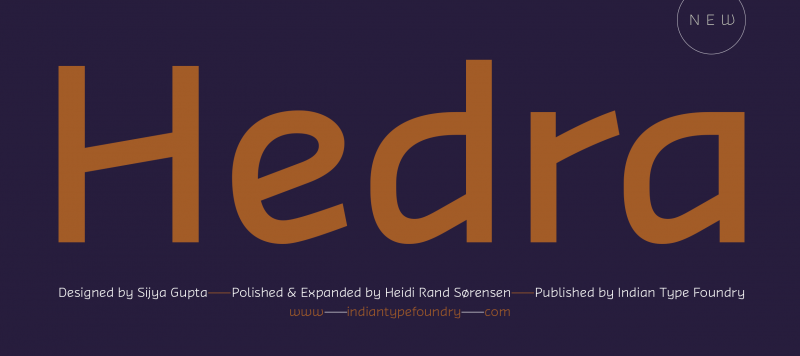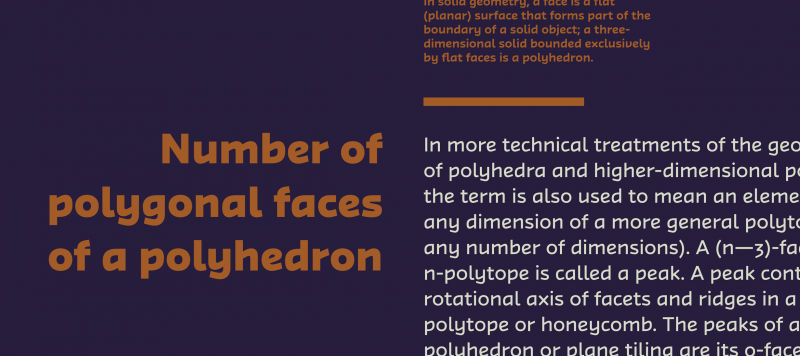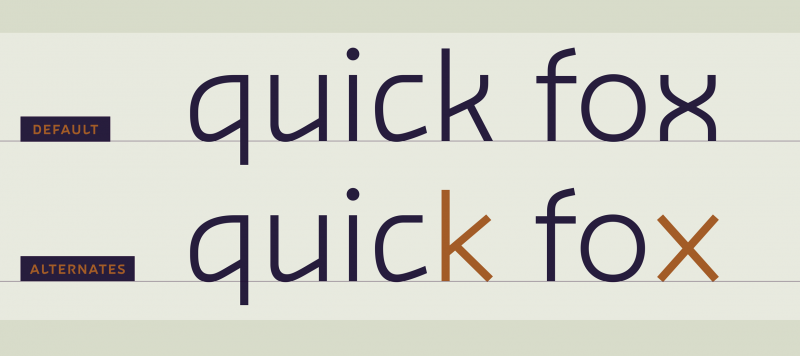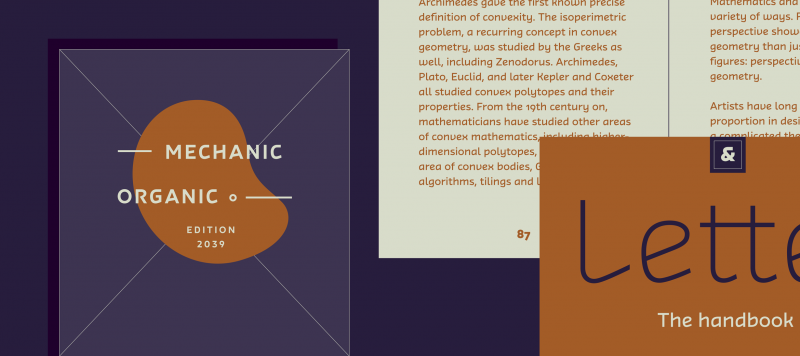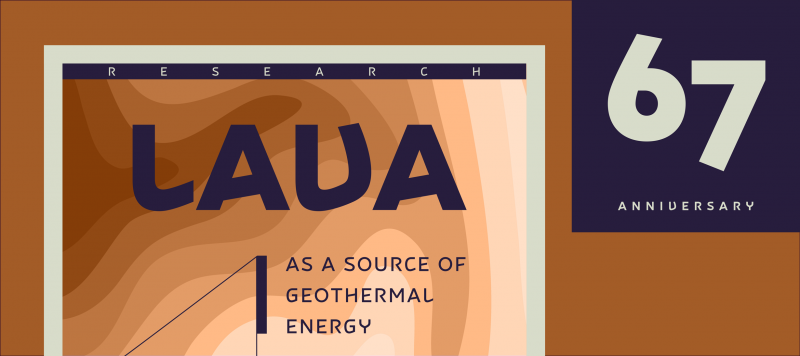
Hedra is an experimental sans with monolinear strokes mixing two typographic strands. On the one hand, the letterforms are very geometric: ‘O’ and ‘o’ are nearly perfect circles with just a small bit of optical correction to make them more readable. Together with the common ‘diagonal nature’ applied to some letter parts, Hedra feels quite technical and text set in it even almost looks futuristic. On the other hand, the letterforms incorporate some art nouveau qualities: the diagonals inside the ‘A’, ’B’ and ‘E’ are more historic than technical, while the ‘K’, ‘V’, and ‘W’ all have some unconventional rounded elements that seem like call-backs to the beginning of the twentieth century. Via an OpenType feature, users can make text look more technical and less historical if desired: Stylistic Set 1 replaces the curved-diagonal ‘K’, ‘X’, ‘Y’, ‘k’, and ‘x’ with straight-diagonal alternates.
Family Name | Hedra |
Designer(s) | Sijya Gupta |
Classification | Sans |